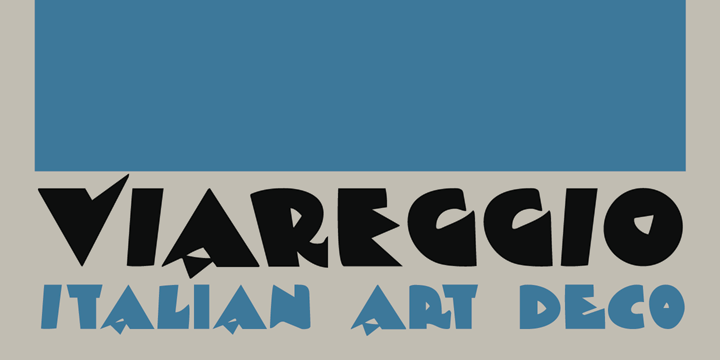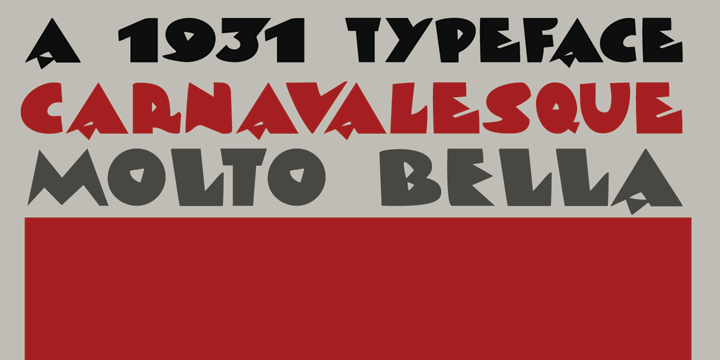
Viareggio
Viareggio is a city in Northern Tuscany, Italy. Viareggio is famous for its carnival and its mascot, the clown Burlamacco (designed by Uberto Bonetti in 1930). Viareggio font was based on the hand lettering found on a 1931 poster, advertising the carnival. Viareggio font comes with extensive language support.